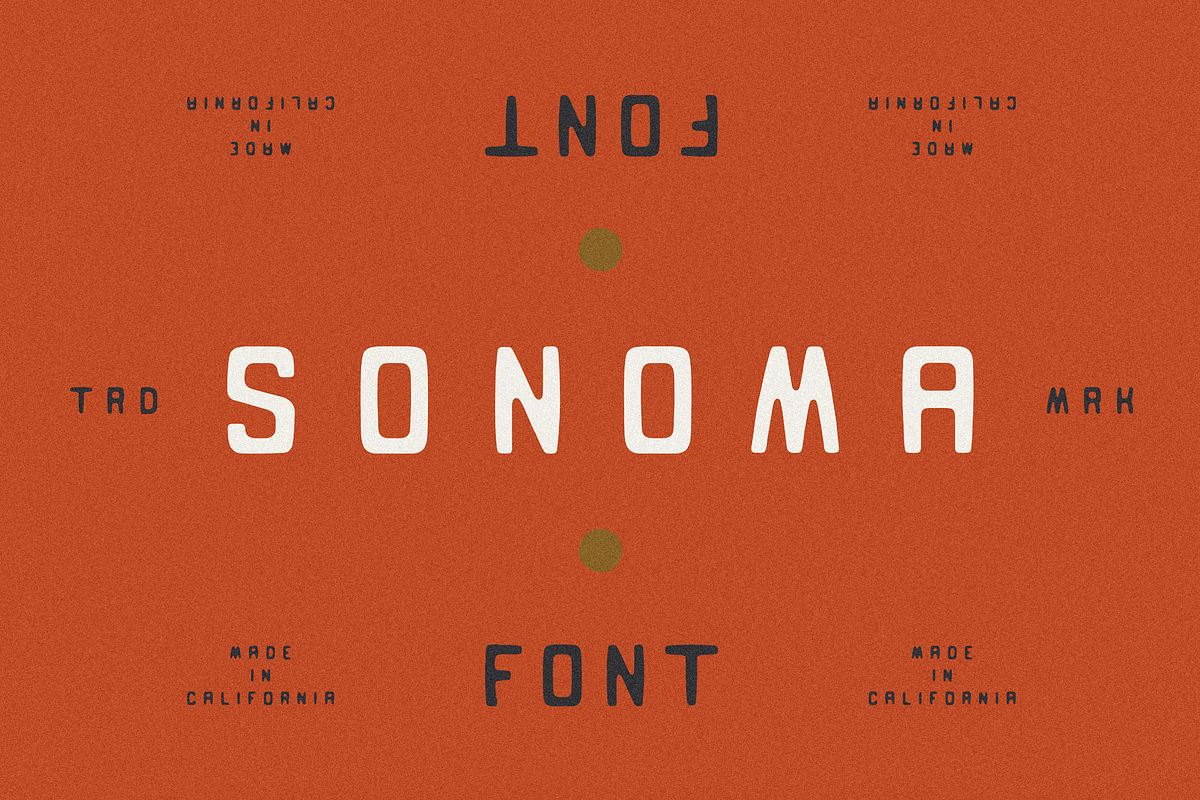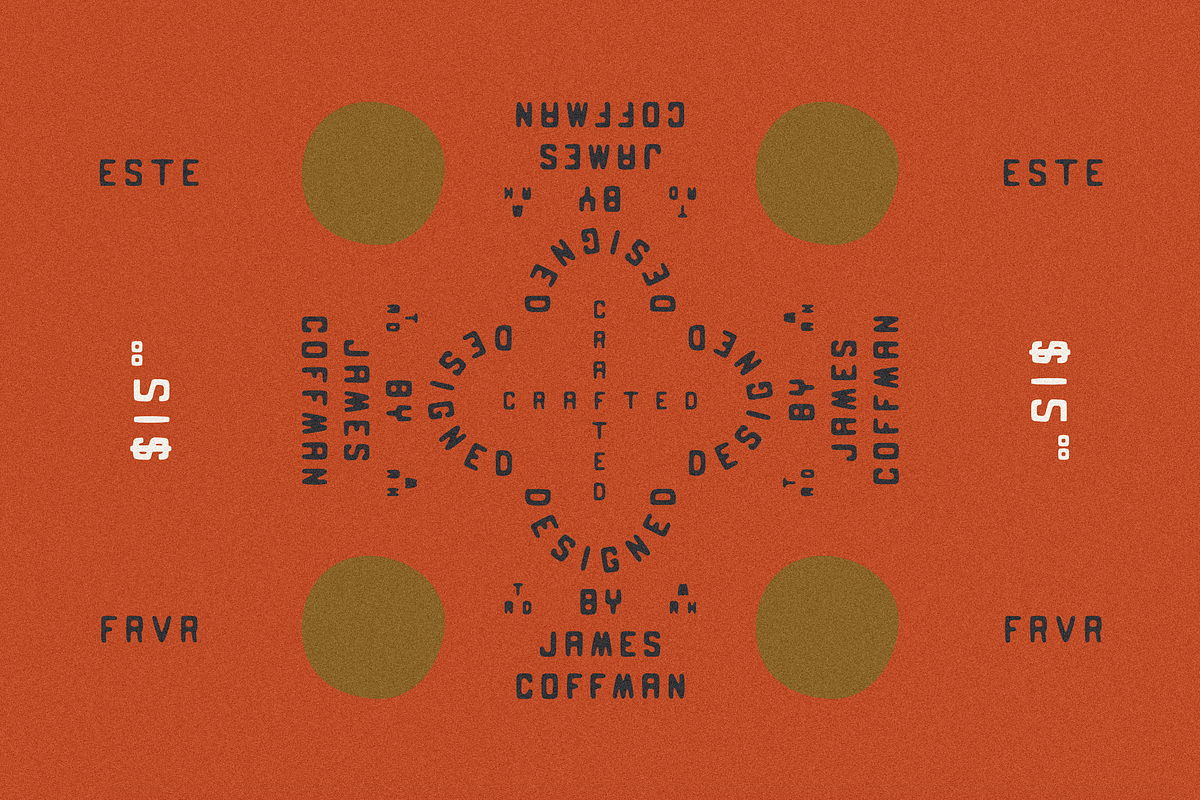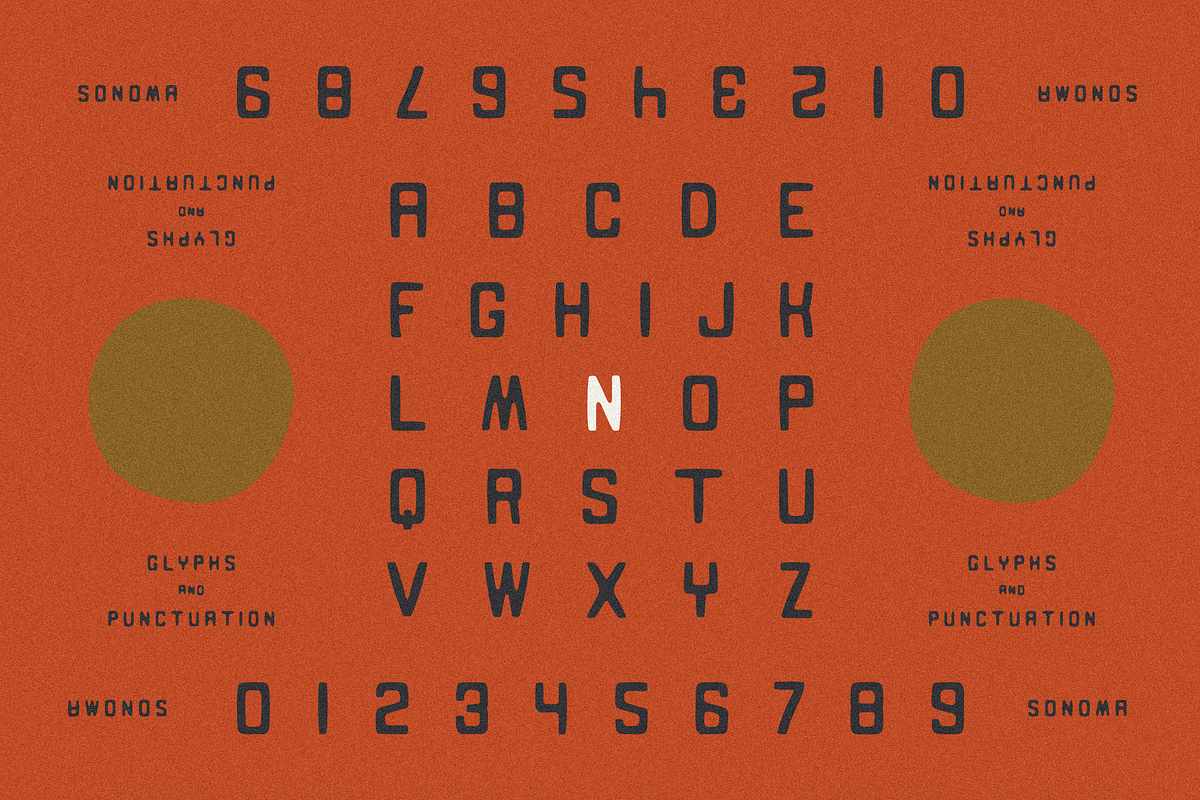
Sonoma Typeface
Sonoma is a handmade typeface styled after classic California vibes. Designed to be utilitarian and work anywhere from main wordmarks, down to back label text with some extra character.